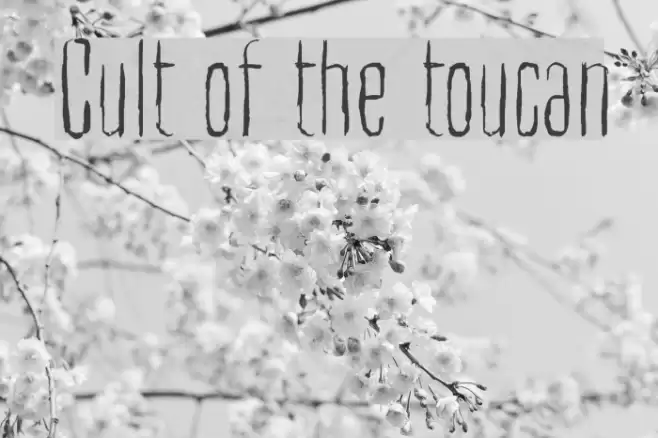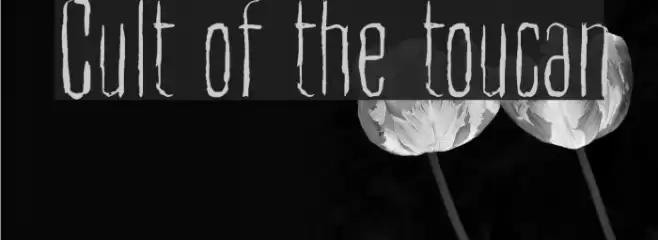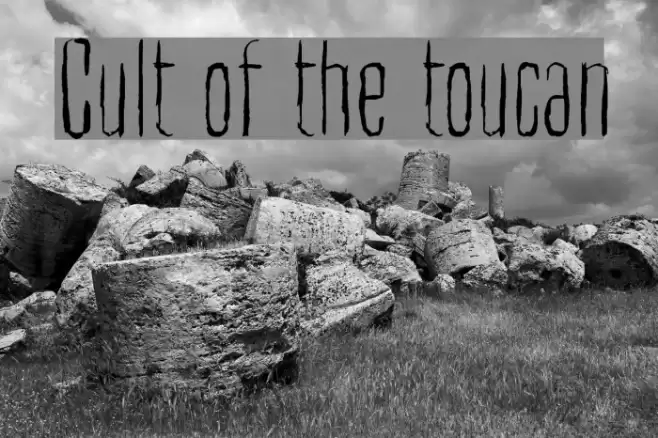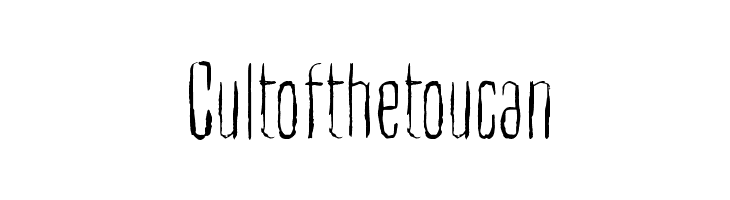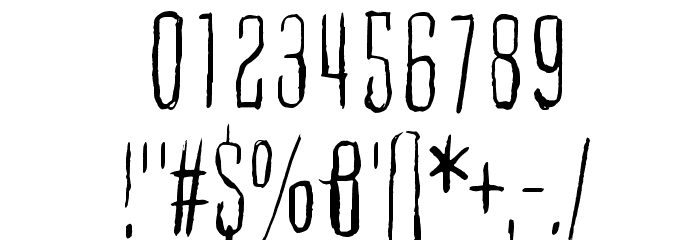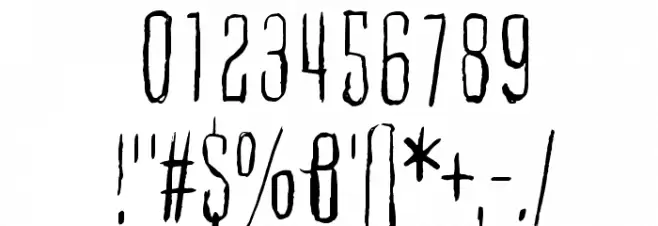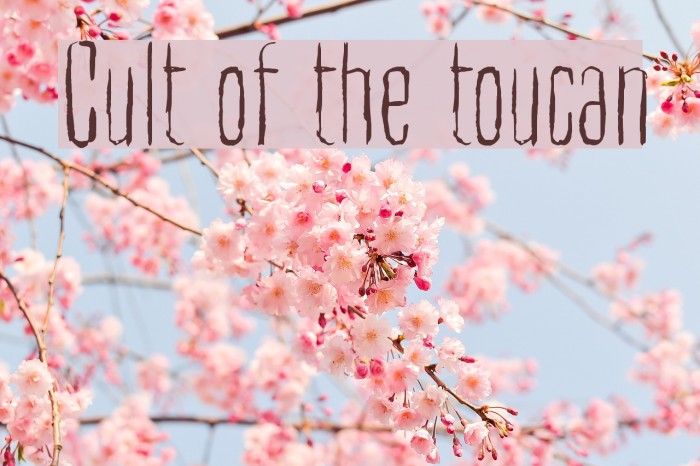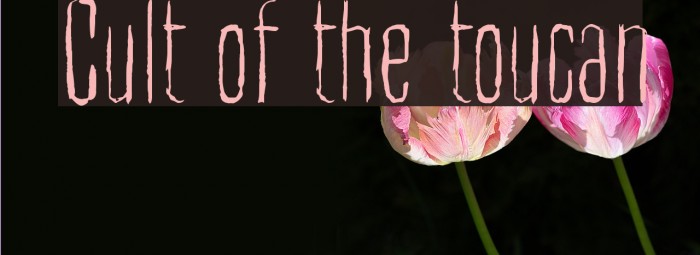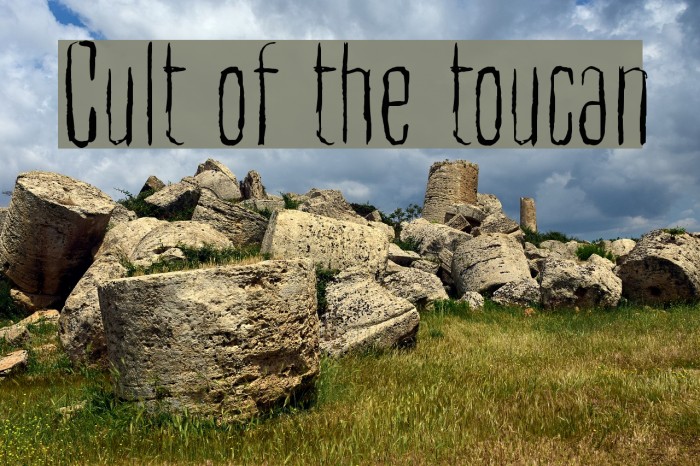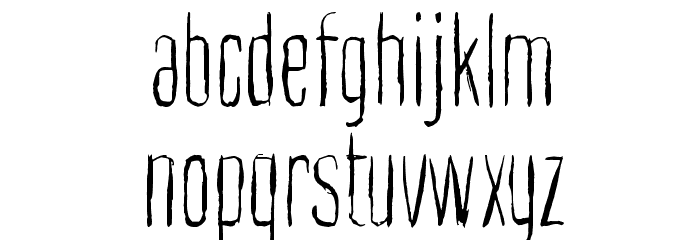
Cult of the toucan Font
Cult of the toucan Description
This font features a unique, hand-drawn style with a slightly distressed appearance, giving it a rustic and organic feel. The characters are tall and narrow, with uneven strokes that add to its handcrafted aesthetic. The uppercase and lowercase letters maintain a consistent style, while the numbers and special characters complement the overall design. The font's irregularities and textured look make it ideal for projects that require a touch of authenticity and creativity.
A hand-drawn, rustic font with a distressed, organic appearance from Distorted Eroded fonts.
- Proposed Projects: Ideal for branding, packaging, posters, and creative projects that require a handcrafted touch.
- Use Case: Logos, Posters, Creative projects